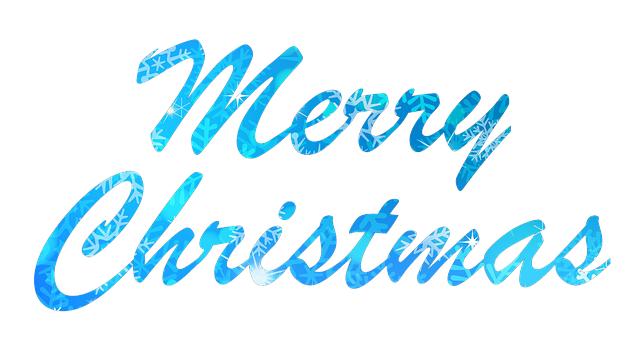
As we navigate the digital landscape, finding ways to infuse elegance and style into our text can make a world of difference. Whether you’re designing invitations, creating social media graphics, or simply adding a personal touch to your projects, utilizing cursive fonts can elevate your text to a whole new level. Canva offers a plethora of cursive fonts to choose from, each unique in its own way. In this article, we’ll explore some of the best cursive fonts on Canva and how you can use them to enhance your designs.
Overview of Cursive Fonts on Canva
Are you looking to add a touch of elegance and sophistication to your designs? Look no further than the vast selection of cursive fonts available on Canva. With a variety of styles ranging from classic and ornate to modern and whimsical, there’s sure to be a cursive font that perfectly complements your project.
Whether you’re creating wedding invitations, flyers, social media graphics, or any other design, the use of cursive fonts can instantly elevate the look and feel of your work. Experiment with different sizes, colors, and combinations to find the perfect cursive font that captures the essence of your message and captivates your audience.
Choosing the Right Cursive Font for Your Project
When selecting a cursive font for your project, it’s important to consider the overall aesthetic you want to achieve. Think about the mood and style you want to convey, whether it’s elegant and sophisticated or playful and whimsical. Experiment with different fonts to find one that complements the theme of your project and resonates with your audience.
Pay attention to the readability of the cursive font you choose. Some cursive fonts may be beautiful but difficult to read, especially in smaller sizes. Make sure the font you select is clear and legible, especially if it will be used for longer blocks of text. Consider factors like spacing between letters, consistency in letterforms, and overall flow of the font. Make sure the font matches the overall tone of your project to ensure a cohesive look and feel.
Classic Cursive Fonts for Timeless Elegance
When it comes to adding a touch of timeless elegance to your designs, classic cursive fonts are the way to go. These elegant scripts bring a sense of sophistication and charm to any project, making them perfect for wedding invitations, formal announcements, and classy branding.
One of the most beloved classic cursive fonts is **”Lavanderia”**, with its graceful loops and flowing lines that evoke a sense of old-world charm. Another popular choice is **”Great Vibes”**, which exudes a sense of elegance and refinement. Whether you’re looking for a font with a romantic flair or a more formal touch, classic cursive fonts are sure to add a touch of sophistication to your designs.
Modern Cursive Fonts for a Stylish Touch
In the world of design, cursive fonts are a classic choice for projects that require a touch of elegance and sophistication. As we embrace modern trends, the evolution of cursive fonts has led to the creation of stunning options that are perfect for adding a stylish touch to any project. From sleek and minimalistic scripts to more elaborate and decorative styles, modern cursive fonts offer endless possibilities for creating visually appealing designs.
When selecting a modern cursive font for your project, consider the overall aesthetic you want to achieve. Whether you’re looking for a font that exudes a sense of luxury, romance, or creativity, there’s a cursive font out there to suit your needs. Some popular choices include **”Montserrat”**, **”Luminari”**, and **”Playlist”**. Experiment with different weights, sizes, and spacing to find the perfect combination that complements your design. With the right modern cursive font, you can elevate your project and make a lasting impression on your audience.
Calligraphy Cursive Fonts for a Sophisticated Look
When it comes to giving your projects a touch of elegance and sophistication, calligraphy cursive fonts are the way to go. These beautifully crafted fonts are perfect for adding a touch of class to invitations, logos, and other design projects. With their flowing lines and intricate details, calligraphy cursive fonts create a sense of luxury and refinement that is sure to impress.
Whether you’re designing a wedding invitation or a business card, using calligraphy cursive fonts can help elevate your design and make it stand out from the crowd. These fonts are versatile and can be used in a variety of ways to add a touch of sophistication to any project. So why settle for ordinary fonts when you can use calligraphy cursive fonts to create a truly elegant look?
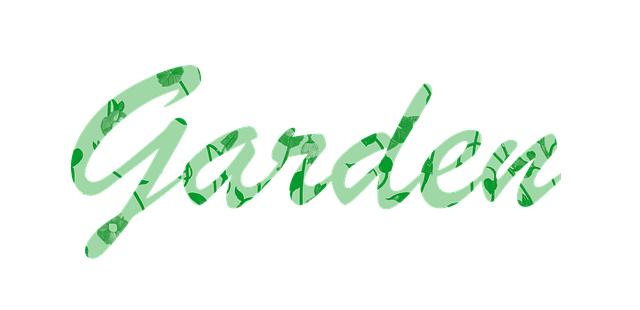
Q: Can I use cursive fonts for all types of projects, or are they best suited for specific types of designs?
A: Cursive fonts can be used in a variety of projects, from invitations and greeting cards to social media graphics and presentations. Just make sure the font matches the overall aesthetic of your design.
The Way Forward
In conclusion, Canva offers a variety of elegant cursive fonts that can enhance the style and elegance of your text projects. Experiment and find your favorite!